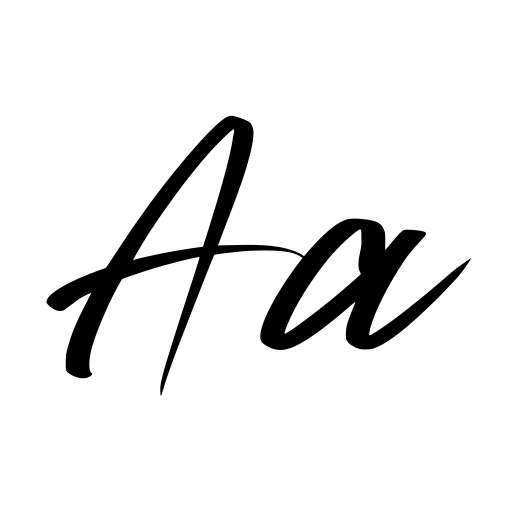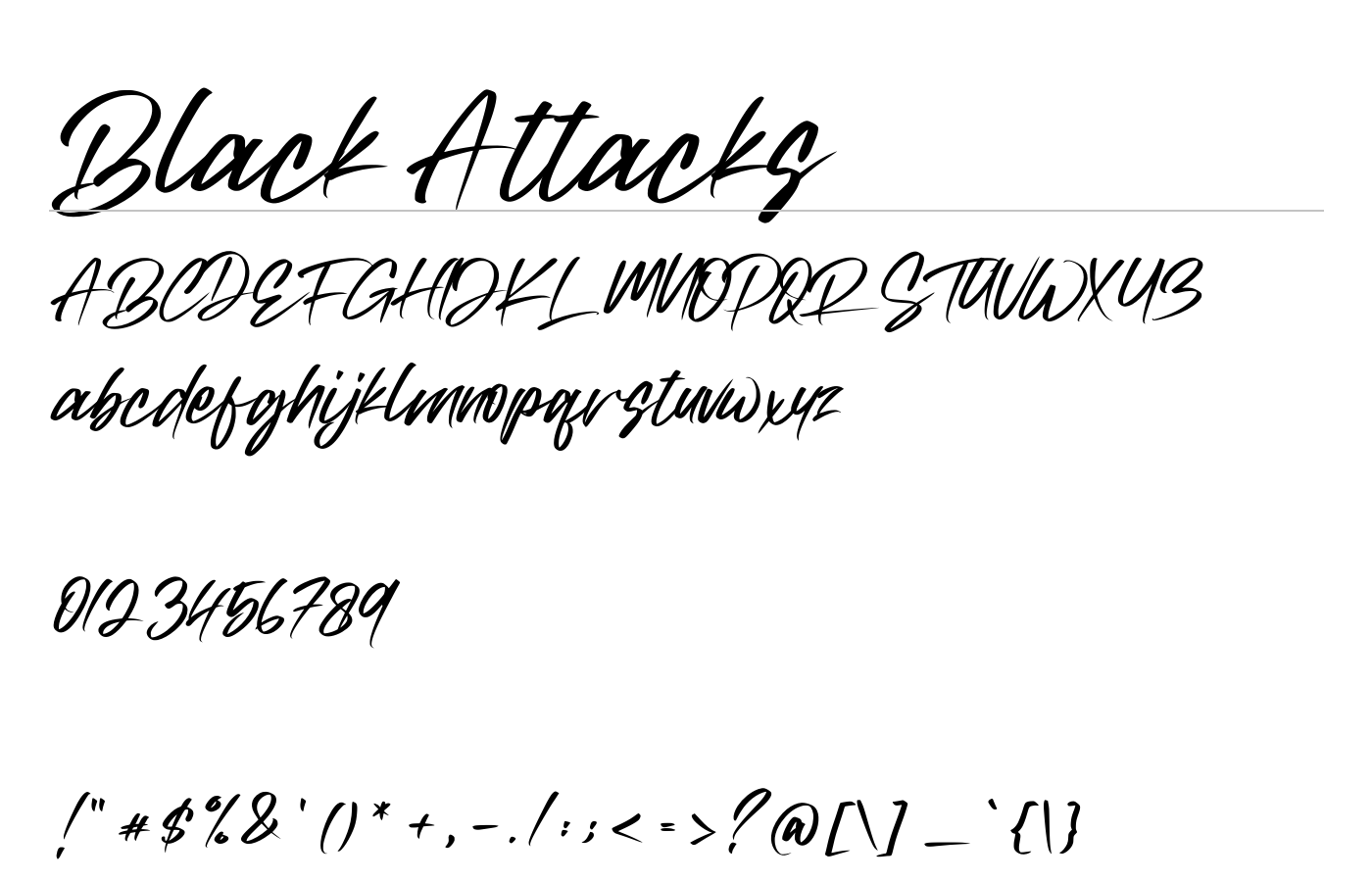
Black Attacks is a dynamic and expressive script font with a bold, flowing style that mimics natural handwriting. Its energetic strokes and slightly uneven rhythm create a sense of movement and personality, making it perfect for designs needing a casual yet confident touch. This font works especially well for logos, branding, and headlines where a lively, creative vibe is desired.
Black Attacks Font
About Black Attacks Font
| Font family | Black Attacks Font |
| Designer | Fatmawati |